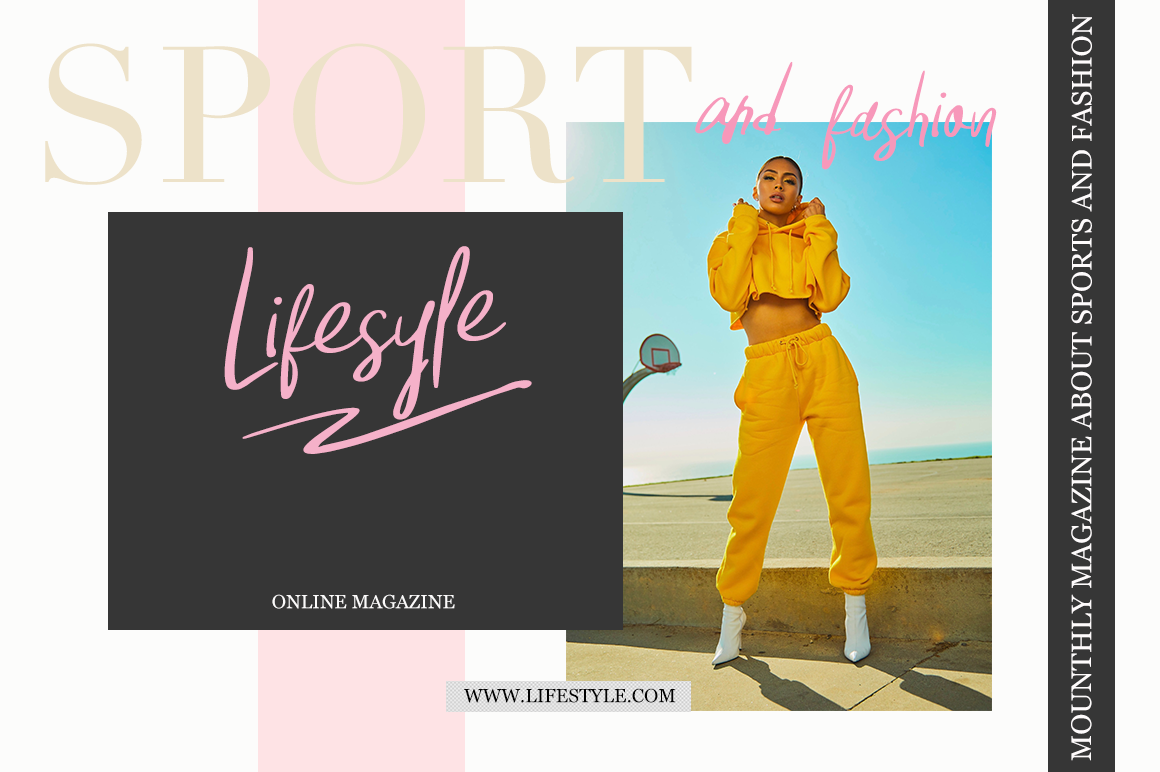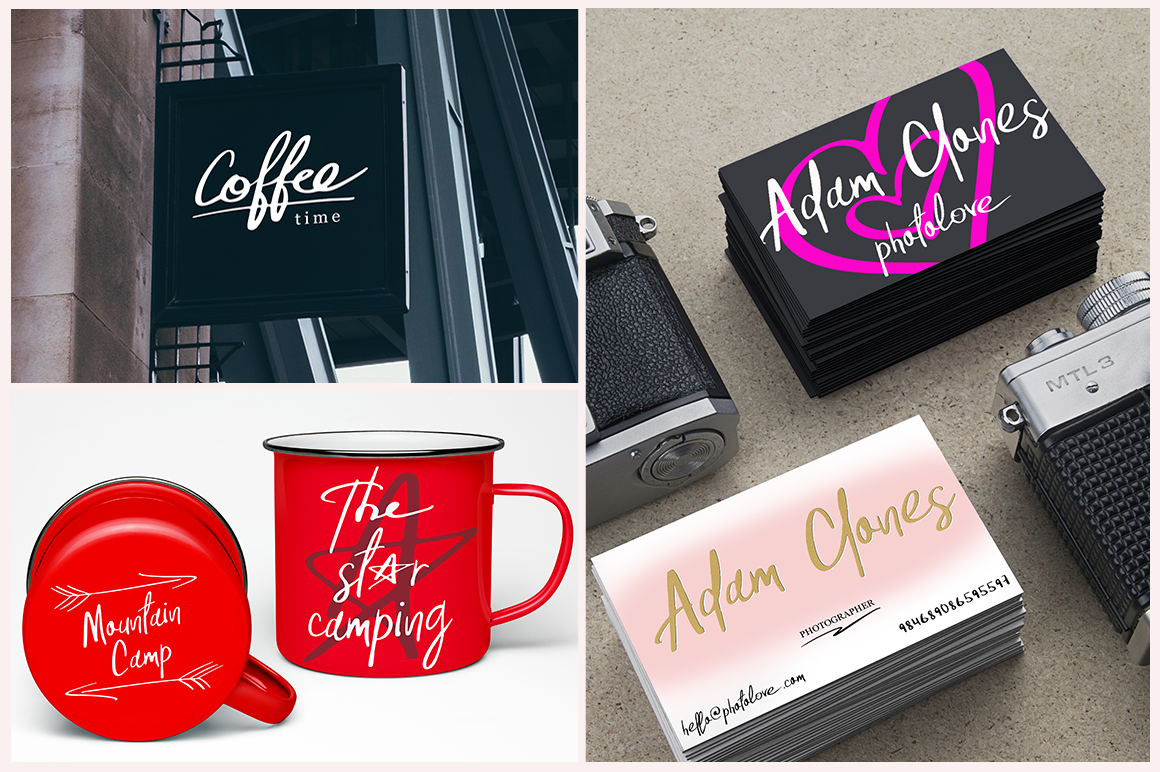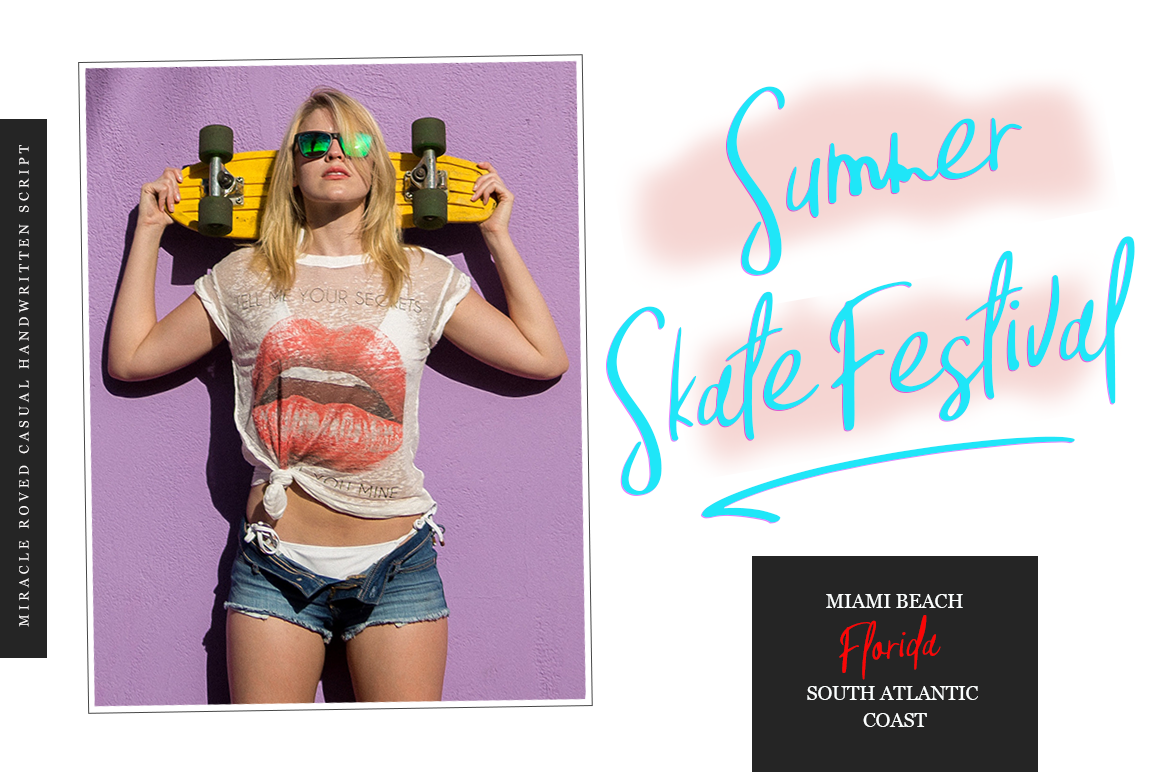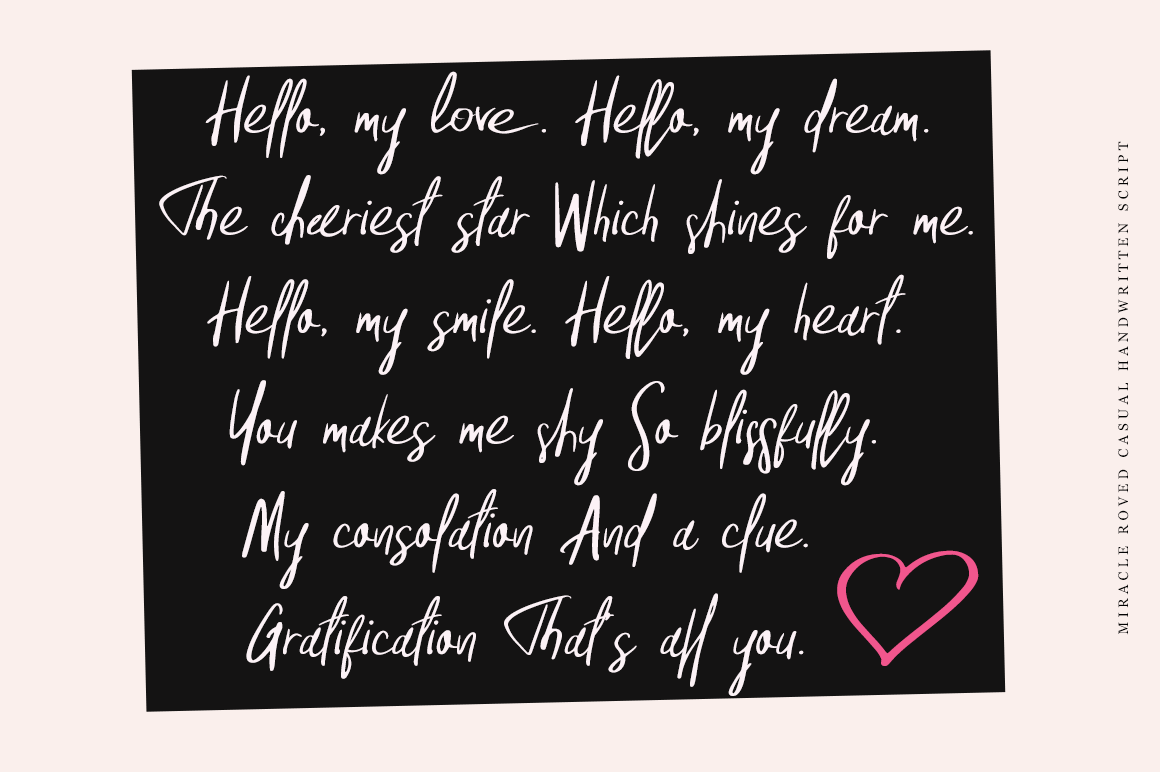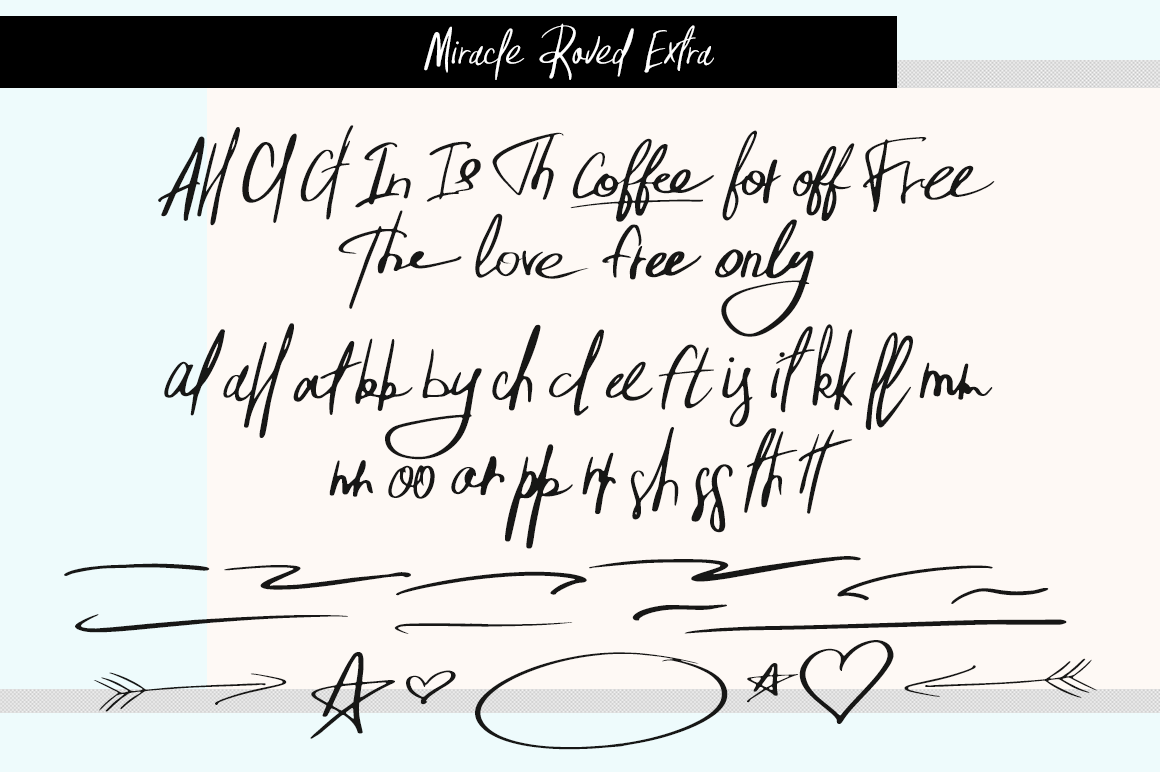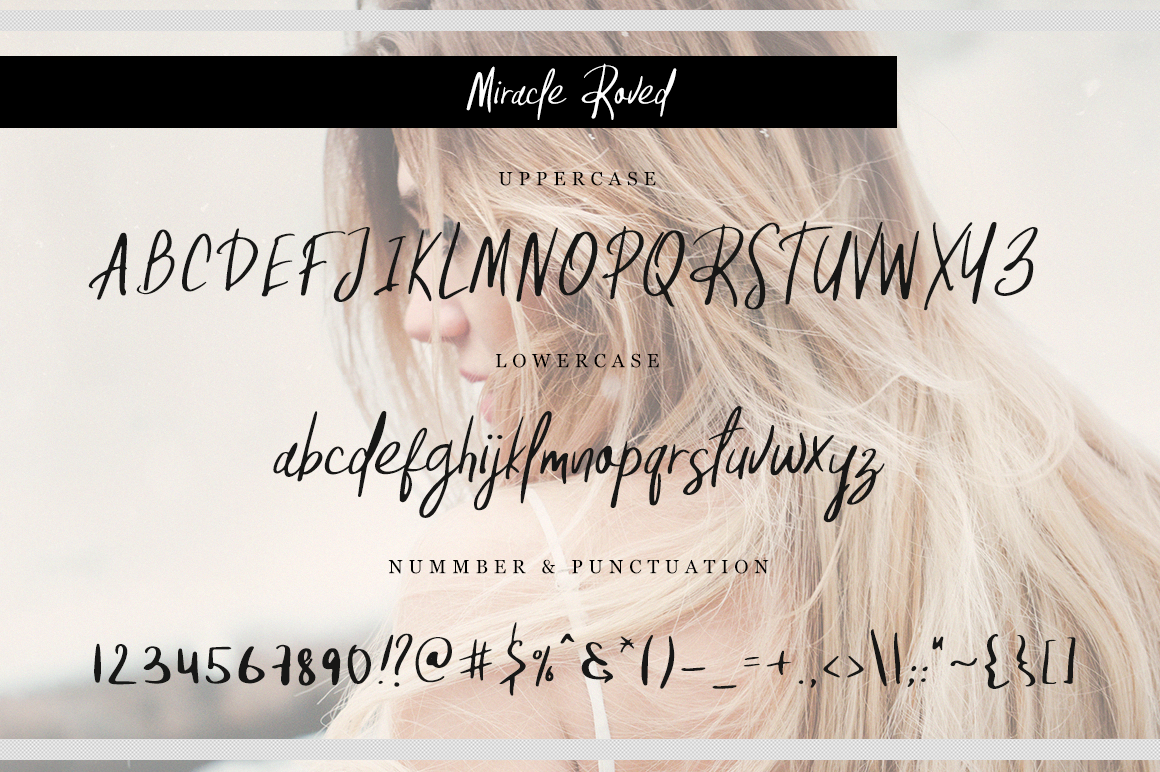
Introduction to Miracle Roved Font
Miracle Roved is a casual and relaxed script font, handwritten to give your typography projects a fun and laid-back feel without skimping on style.
This handwritten font is ideal for communicating a relaxed yet fashionable vibe .